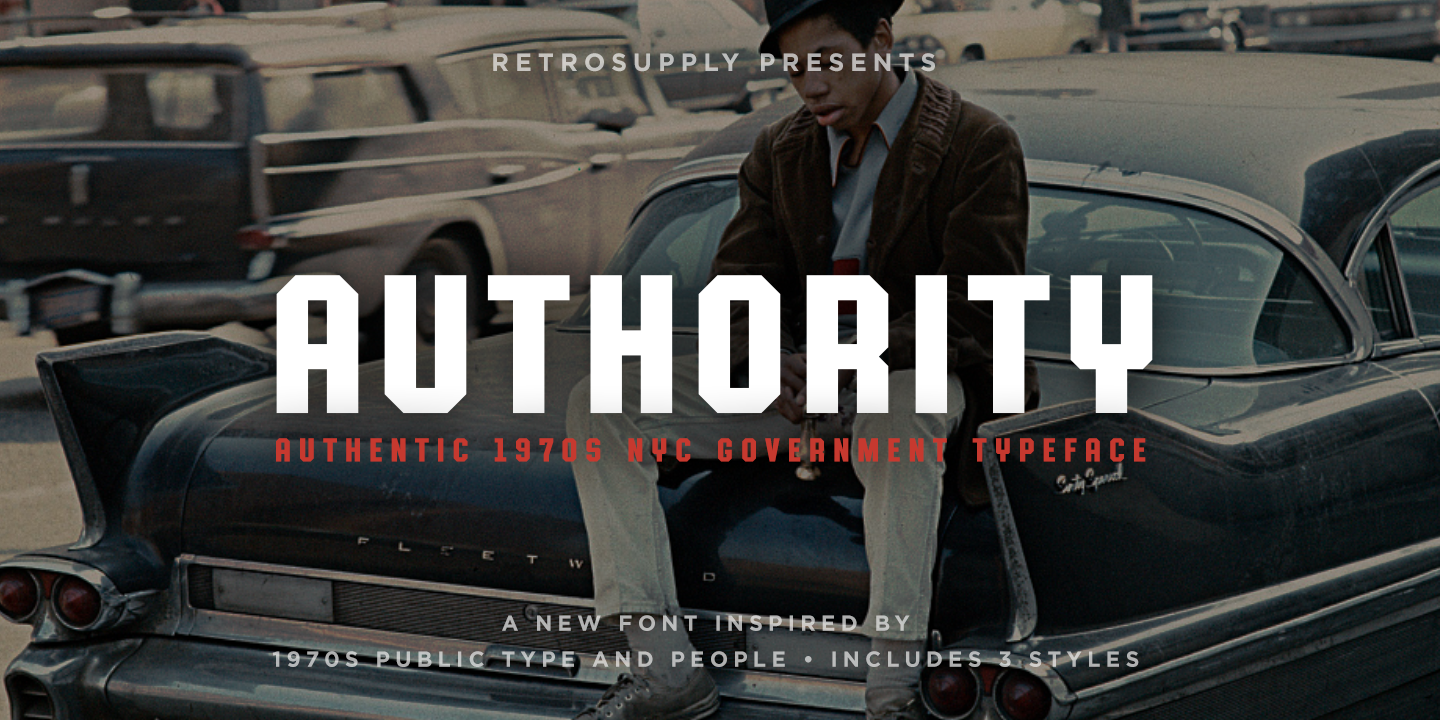
Authority Font is perfect for corporate executive branding, law firm identity systems, government agency materials, financial institution logos, professional consulting services, academic institution headers, leadership conference signage, executive coaching materials, and prestigious award ceremonies. This commanding typeface brings institutional gravitas and executive presence to both digital and print design applications.
Authority Font is exciting because it embodies the essence of leadership and institutional power, making it an exceptional choice for designers who want to create designs that command respect and convey unwavering credibility. Its bold letterforms and confident structure provide the perfect combination of strength and sophistication, ensuring your projects communicate executive authority and professional excellence that inspires trust and confidence.
The Authority Font family includes comprehensive weight variations from medium to extra bold, featuring regular, semibold, bold, and black weights with matching condensed versions. Each weight maintains consistent authoritative aesthetics while offering flexibility for creating powerful typography hierarchies, allowing designers to build commanding visual systems with seamless professional coordination and executive impact.
Whether you're designing for Fortune 500 companies, professional services, or leadership brands, Authority Font Free Download delivers uncompromising visual strength that resonates with decision-makers and stakeholders. This premium typeface offers designers the power and precision needed to create designs that communicate leadership, expertise, and institutional reliability effectively. The font's commanding character makes it perfect for headlines, executive presentations, and corporate applications where authority and credibility are paramount. Download Authority Font today and establish your creative projects with genuine executive presence and institutional authority that defines leadership excellence.